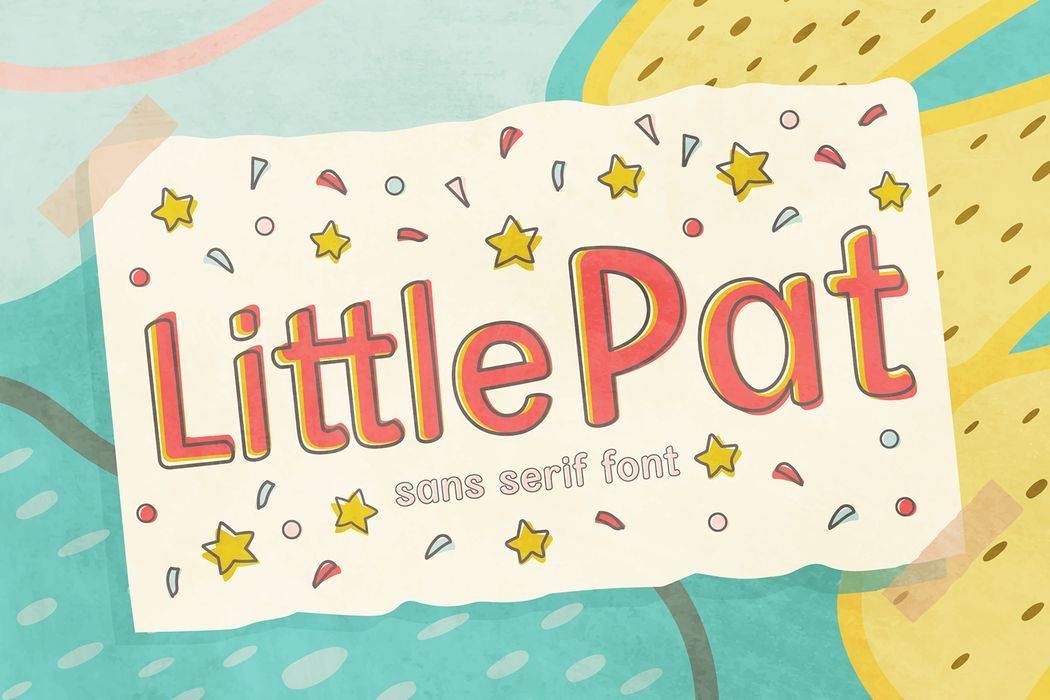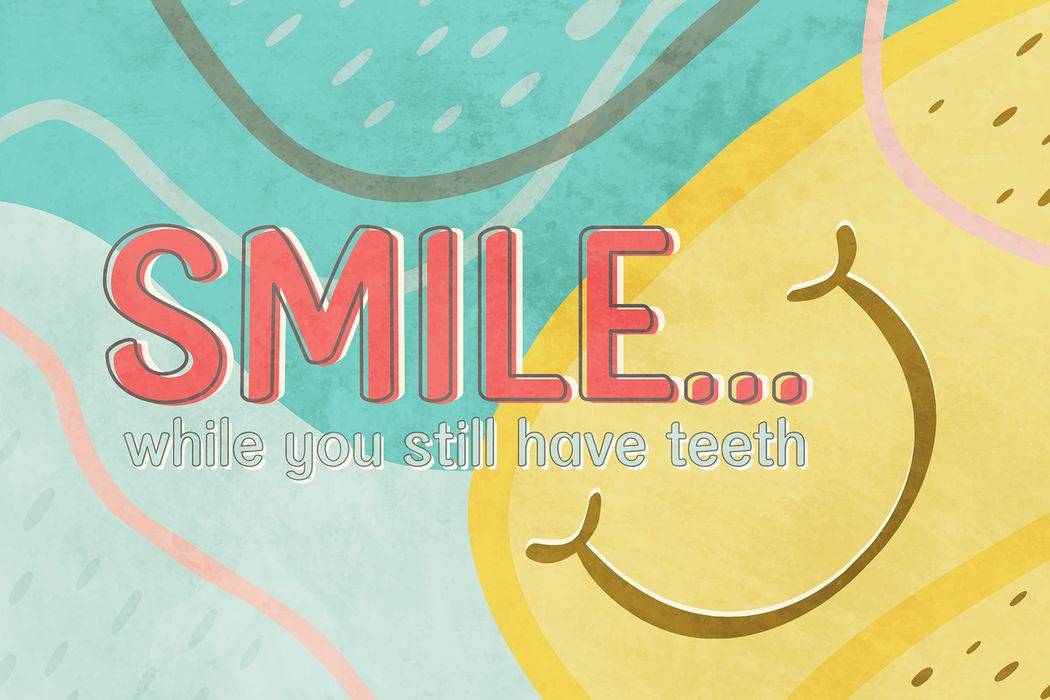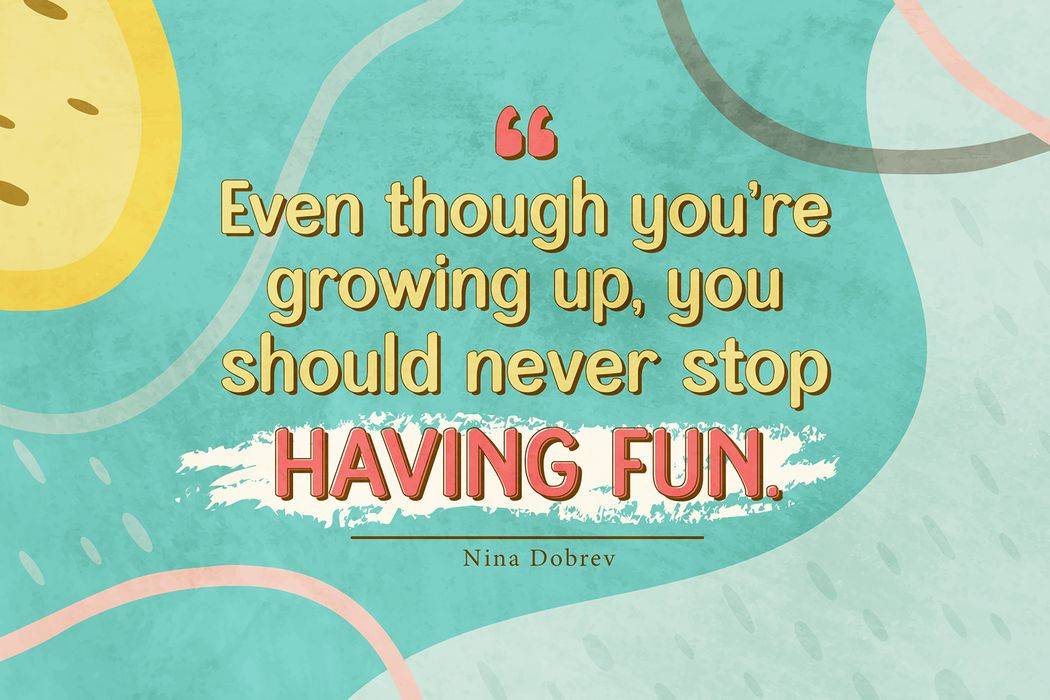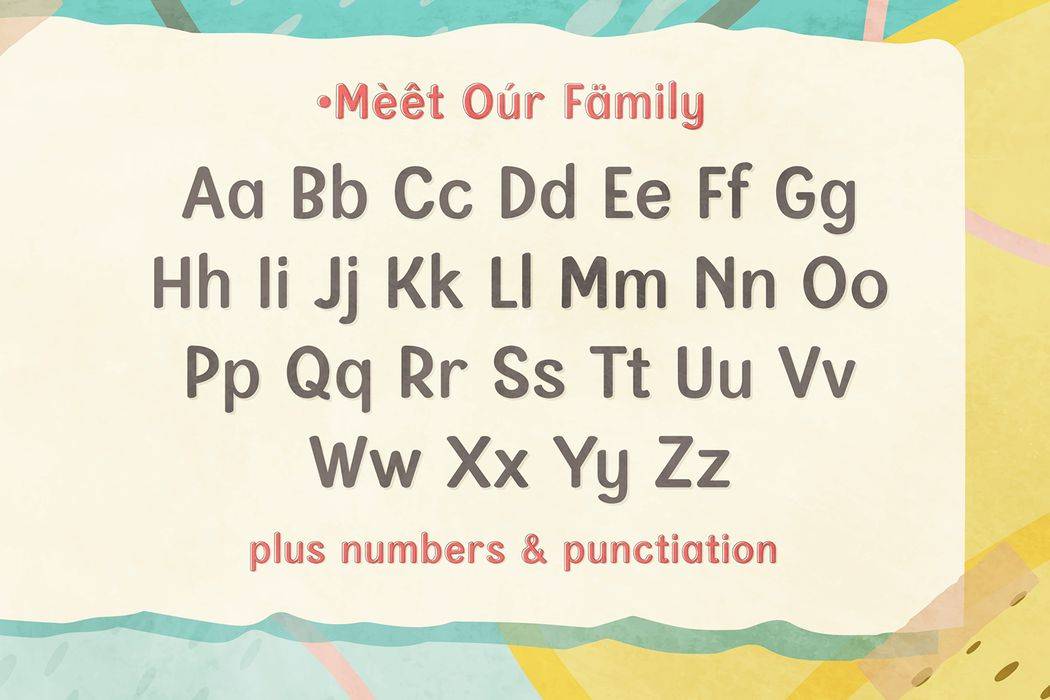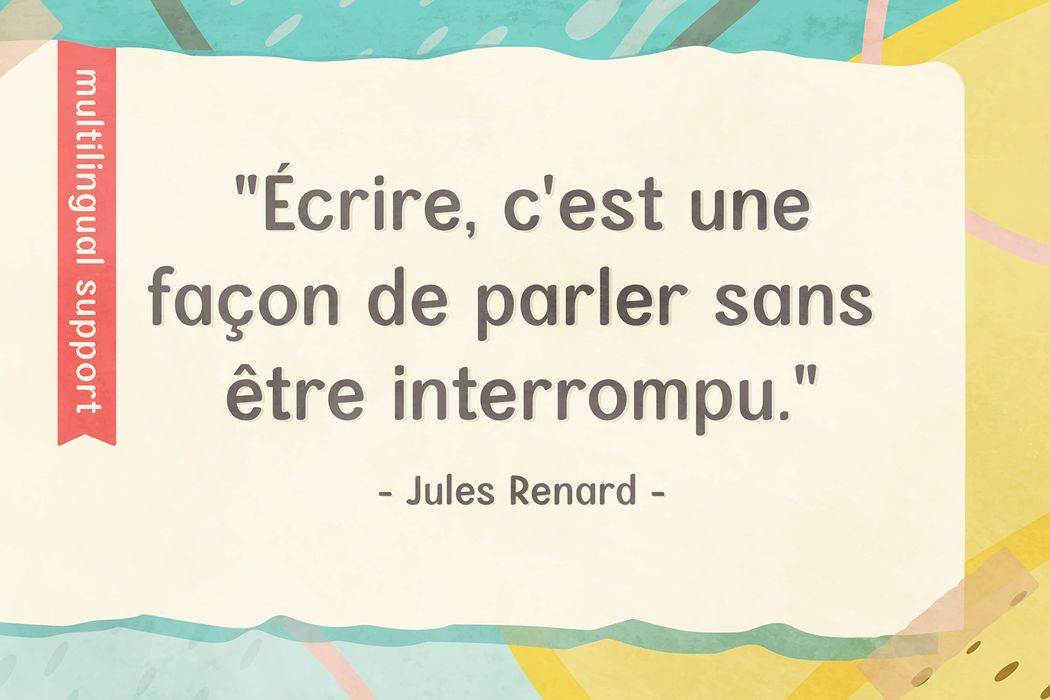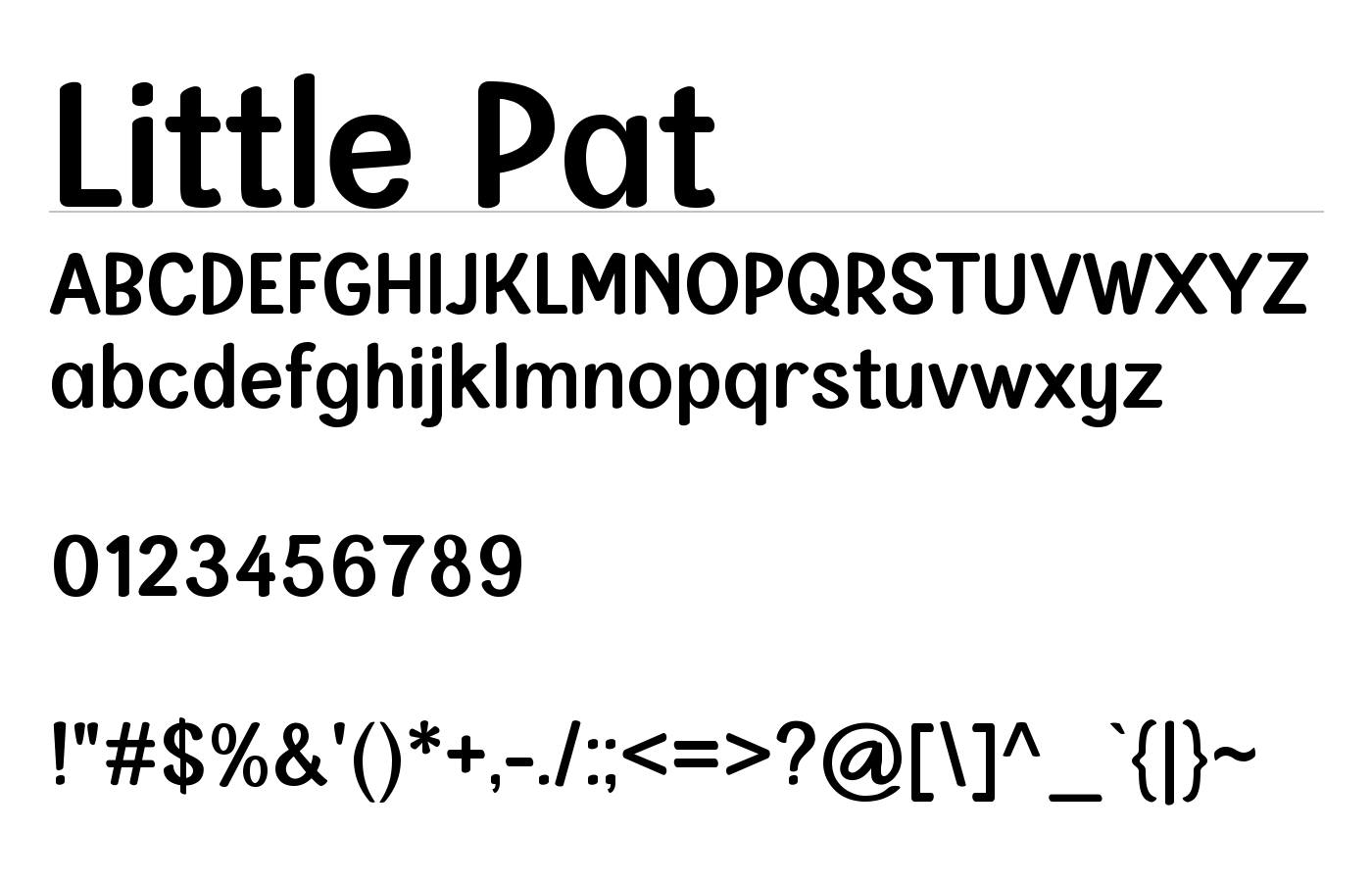
Little Pat is a rounded sans serif font with a friendly and approachable feel, featuring medium weight and slightly condensed letterforms. Its clean and soft strokes, combined with playful, curved terminals and consistent x-height, make it ideal for casual and informal designs. This font works well for children's books, branding, and websites that seek a warm and inviting personality.